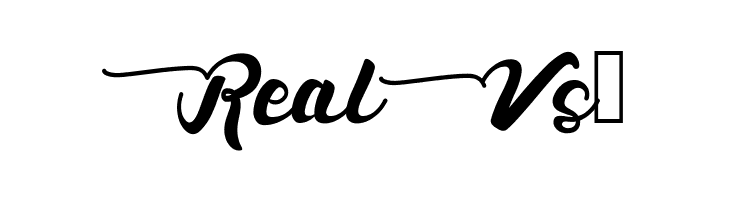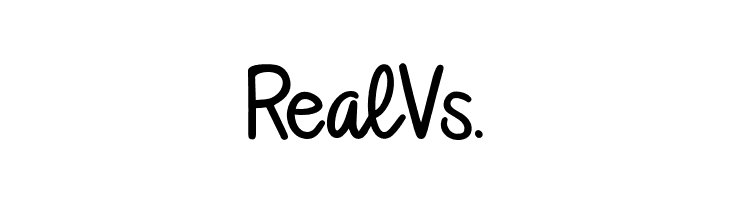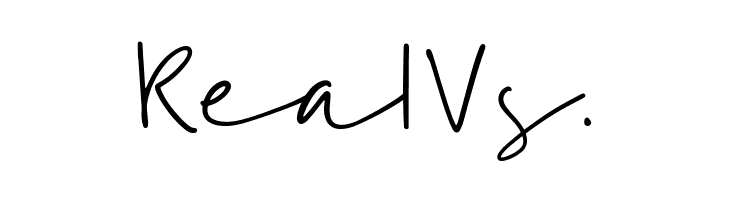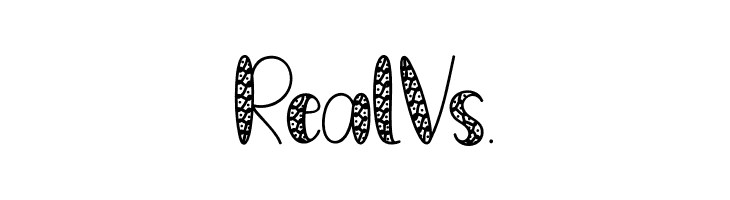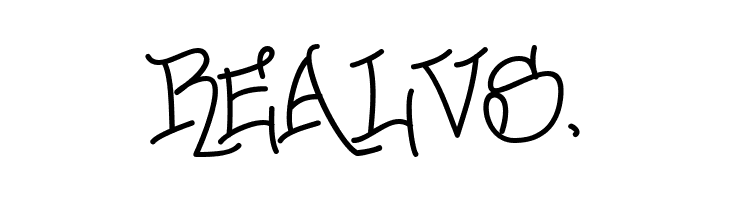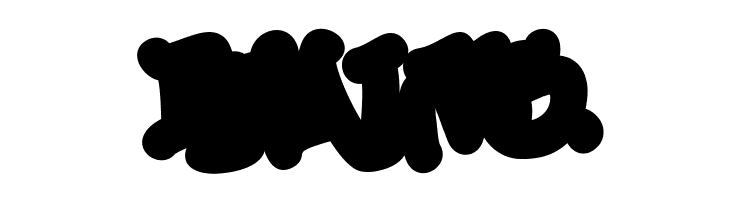
A bold and elegant script font with flowing, cursive letterforms.
A whimsical script font with star embellishments and flowing, playful letters.
A playful and elegant script font with fluid, connected letterforms.
A bold, hand-painted font with an urban, graffiti-inspired style.
A bold, graffiti-inspired font with dynamic curves and a playful, artistic style.
A bold, graffiti-inspired font with dynamic, flowing lines and a playful, urban aesthetic.
A bold, graffiti-inspired font with thick, rounded strokes and a dynamic, urban style.
A dynamic and elegant script font with flowing, connected letterforms.
A bold, decorative font with sharp serifs and a medieval flair.
A bold, hand-drawn font with a playful and artistic style.
A flowing, elegant script font with dynamic strokes and a modern flair.
An elegant script font with flowing, cursive strokes and artistic flair.
A whimsical, heart-patterned decorative font with a playful and romantic style.
A playful handwritten font with fluid, natural strokes and a casual style.
An elegant script font with flowing, interconnected letters and ornate flourishes.
A bold, cursive font with decorative loops and smooth curves.
A bold, flowing script font with elegant, cursive letterforms.
An elegant script font with flowing, decorative loops and smooth strokes.
An elegant, flowing script font with decorative uppercase letters and smooth lowercase letters.
A delicate and elegant script font with thin, flowing lines and subtle flourishes.
An elegant, thin script font with flowing, decorative curves.
A cursive font with elegant, interconnected letters and a modern calligraphic style.
A playful, handwritten font with smooth, rounded edges and a casual style.
A lively and elegant script font with flowing, connected letterforms and moderate contrast.
A dynamic, brush-stroke font with an artistic and expressive style.
An elegant and ornate script font with intricate flourishes and flowing letterforms.
An elegant script font with smooth, flowing strokes and a handwritten feel.
A lively, cursive script font with interconnected letters and a natural handwriting style.